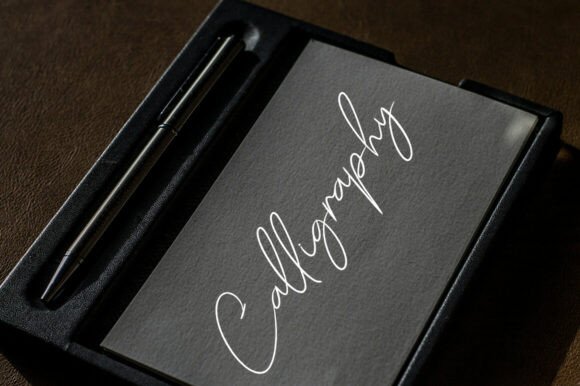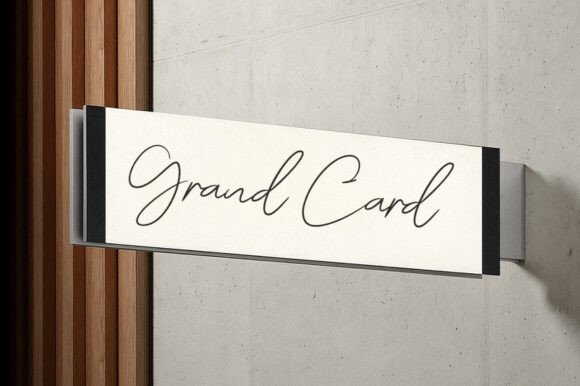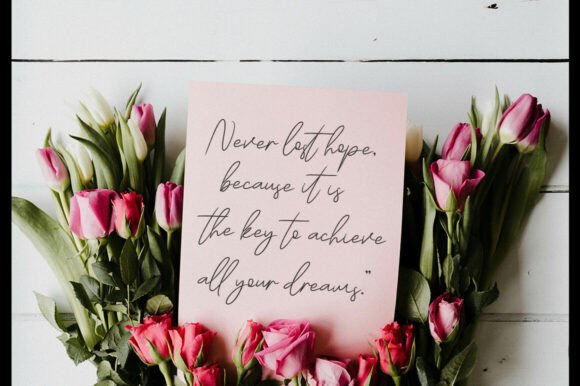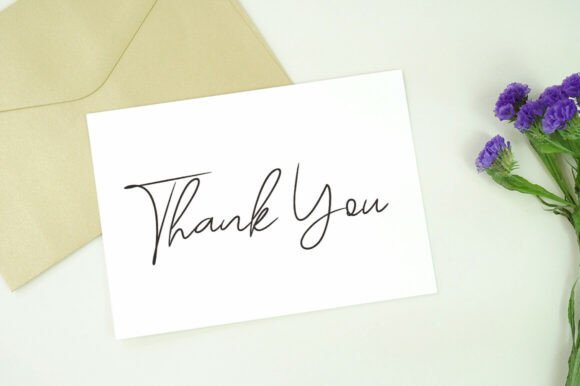
Introduction to Holiday Signature Font
Holiday Signature is a stylish and dainty script font.
It is suitable for any project such as logos, branding, labels, photography, watermarks, special events, and all your other lovely projects that need a beautiful script taste This font is PUA encoded which means you can access all of the glyphs and swashes with ease.